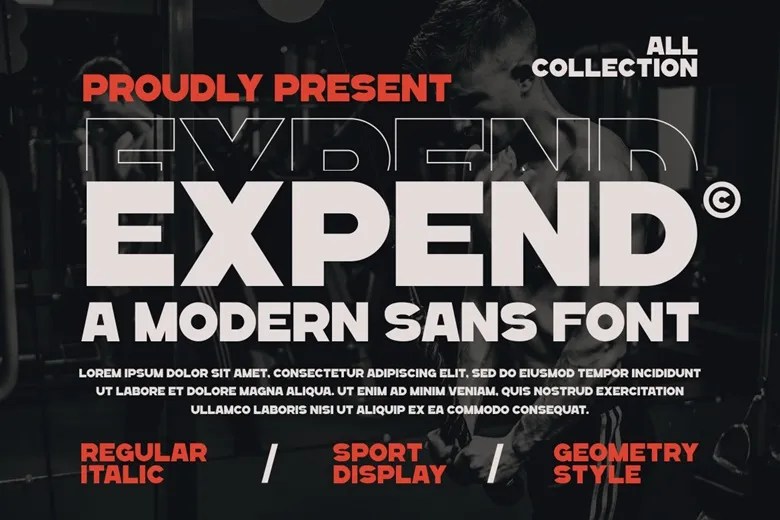
Expend Font
Expend is a sans serif typeface that embodies modern design through its minimalist and sleek style. With its clean and sophisticated appearance, Expend is the ideal choice for creating a polished and contemporary look in your designs.
Whether you’re working on branding, headlines, or projects that demand a refined aesthetic, Expend offers the versatility and clarity needed to elevate your creative work. Its simplicity ensures it complements various design themes while maintaining a professional edge.
Bring your designs to life with the modern charm of Expend, a font designed to enhance the quality and visual appeal of any project.